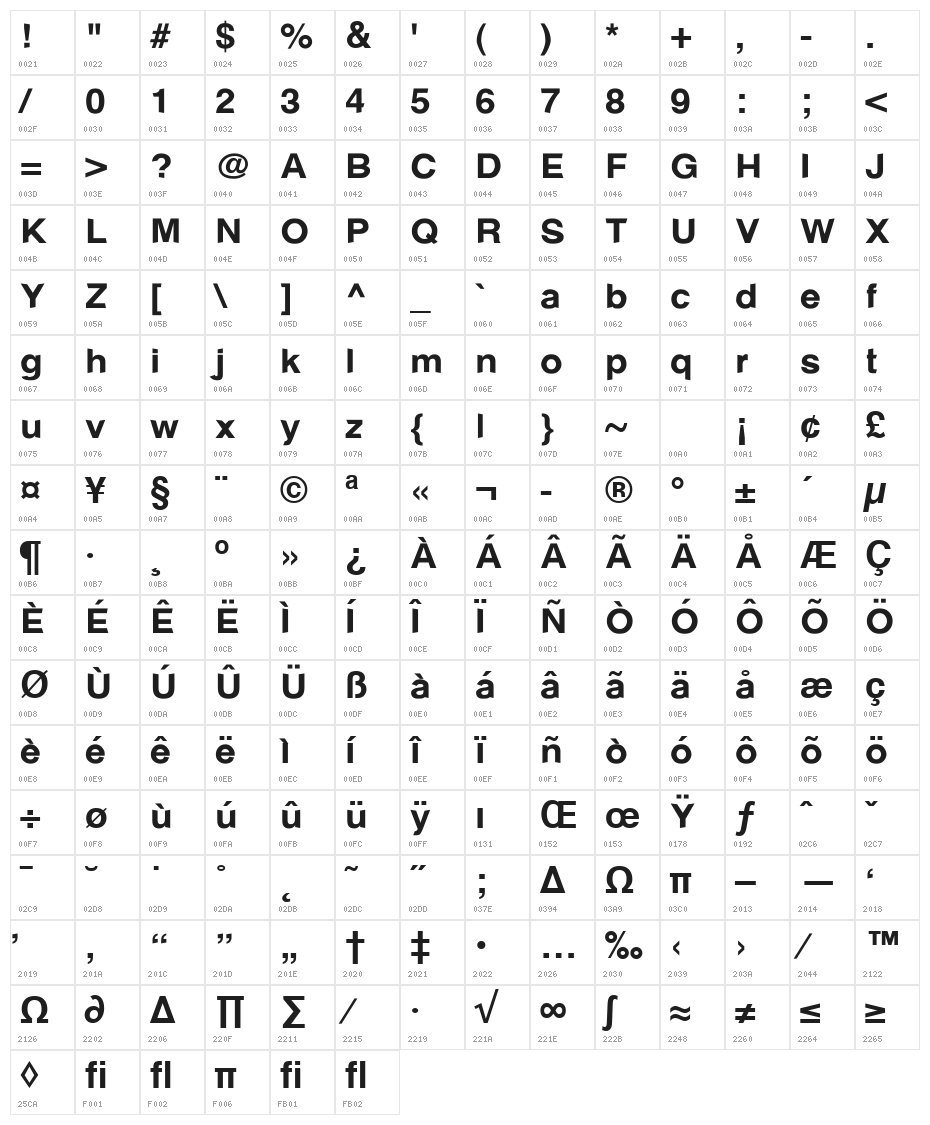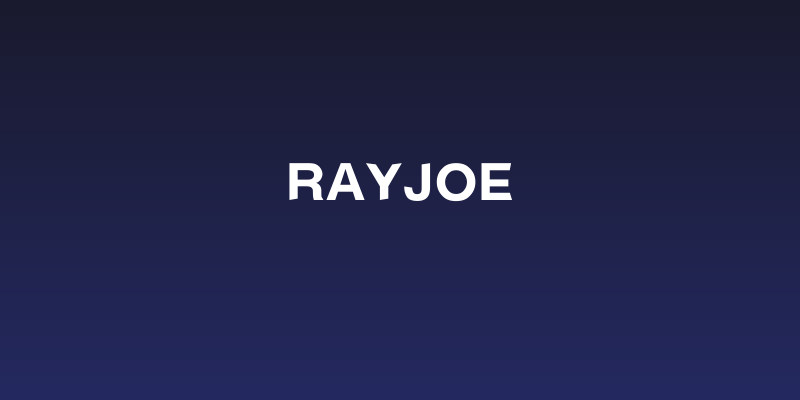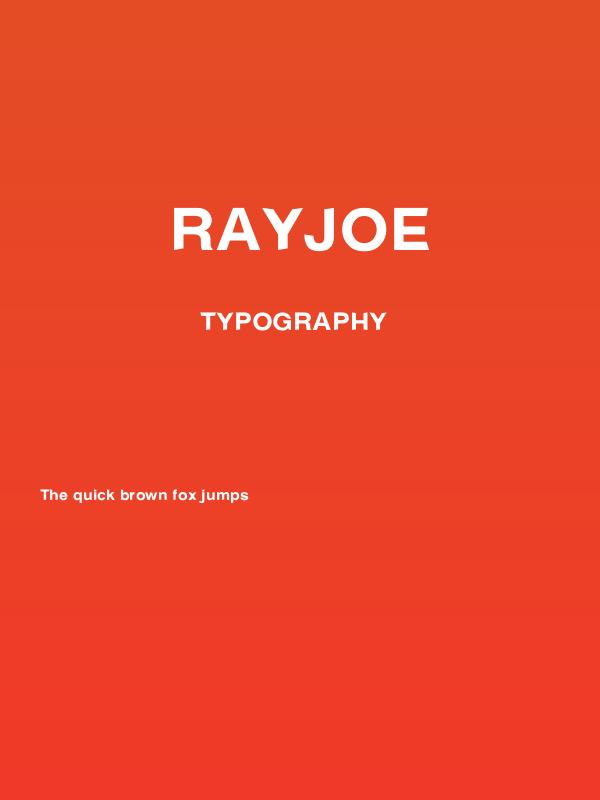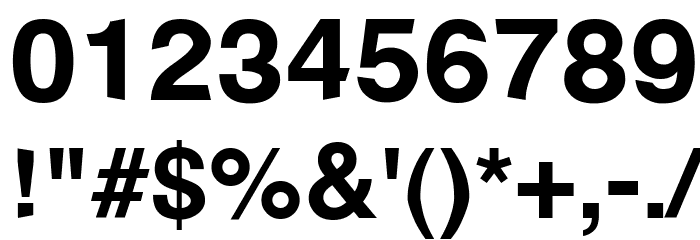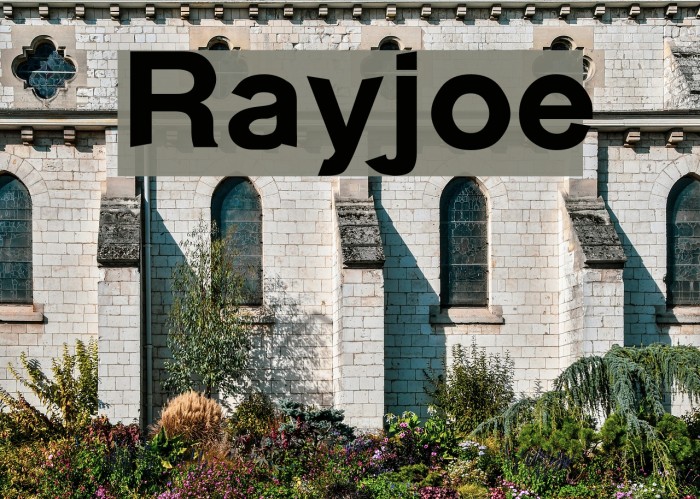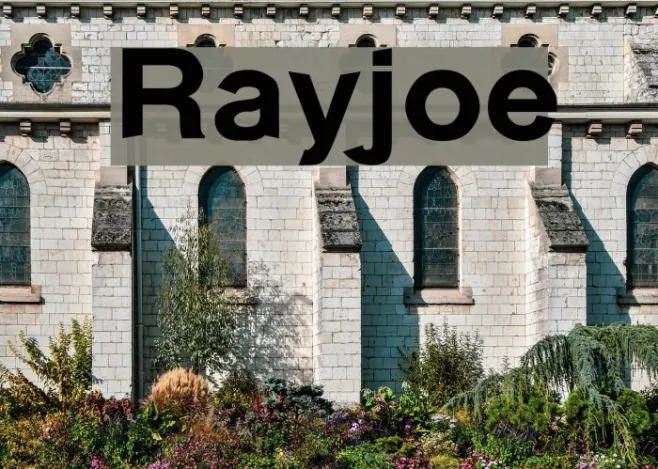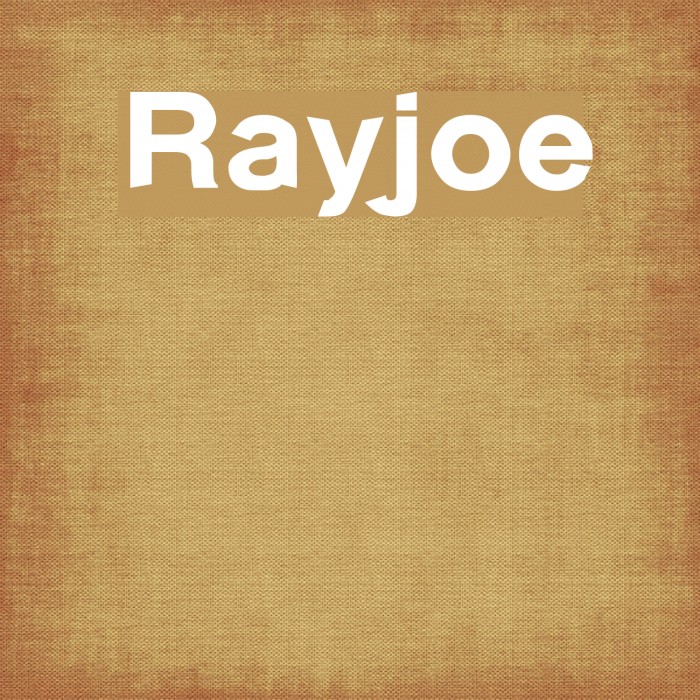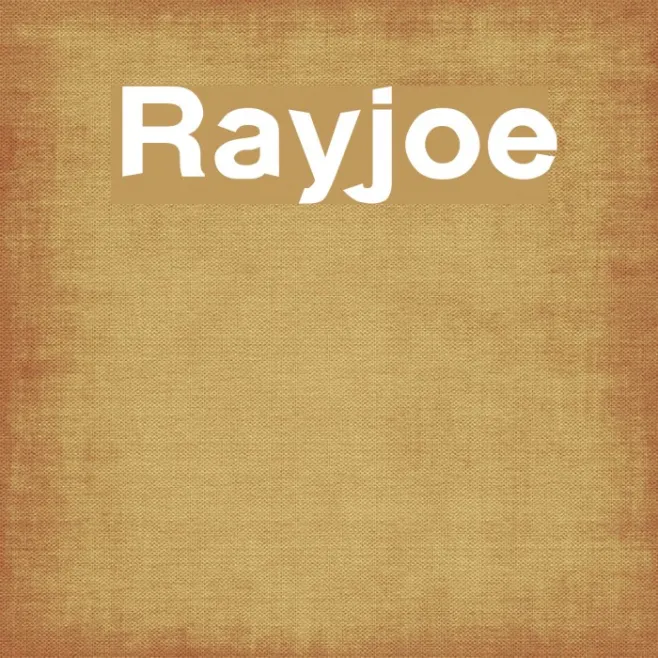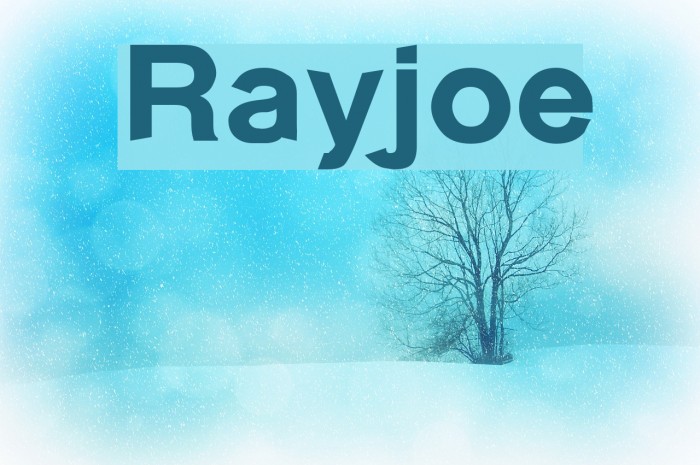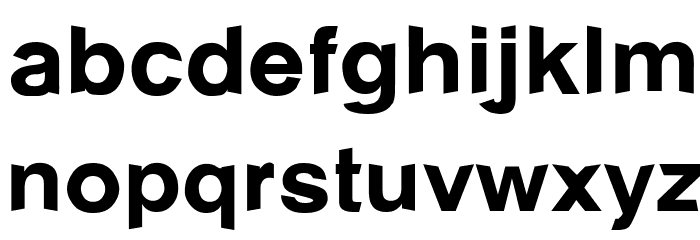
Rayjoe Font
Rayjoe Description
This font features a bold and modern sans-serif style with clean, straight lines and uniform stroke widths. The characters are well-defined and exhibit a strong presence, making them highly legible and impactful. The uppercase letters are slightly taller than the lowercase, providing a balanced and professional appearance. The numerals are consistent with the overall design, ensuring clarity and readability. Special characters are included, maintaining the same boldness and style, making this font versatile for various applications.
| Use Case | Headlines, Logos, Advertising |
| Proposed Projects | Ideal for branding, advertising, headlines, and digital media where a strong, modern impression is desired. |